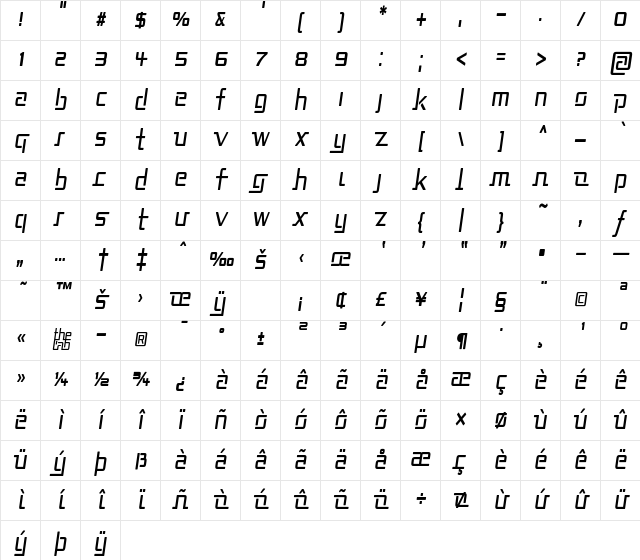
Complete Republika II Cnd Italic glyph index. Displaying only characters natively supported by Republika II Cnd Italic font.
Republika II Cnd is a composed and adaptable typeface that performs quietly and consistently across a wide range of design contexts. The slanted form adds forward momentum and visual energy.